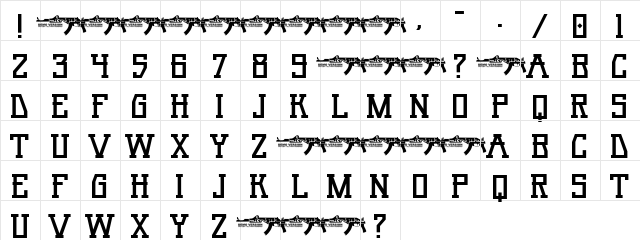
Umar Slab Font Preview
Design Context for Umar Slab Typeface
Umar Slab combines the readability of serif typography with the visual weight of a slab construction, resulting in a typeface that feels both authoritative and approachable.
Suited to magazines, political campaign materials, bold packaging, and any setting where authority matters.
Pro Tip: Use Umar Slab for headlines and subheadings where its slab serifs can make an impression. It also holds up well in mid-size body copy thanks to its sturdy construction.